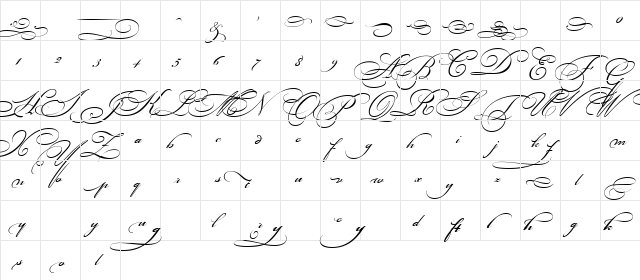
BickhamScriptFancy2 Regular
Design Context for BickhamScriptFancy2 Typeface
BickhamScriptFancy2 flows with the natural rhythm of handwritten lettering, making it ideal for designs that call for warmth and personal expression.